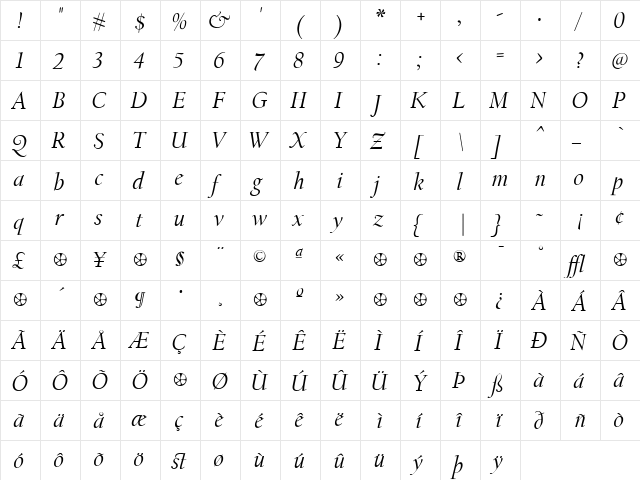
CalifornianMiddle Italic
| Foundry | Copr. The Font Bureau, Inc |
Design Context for CalifornianMiddle Typeface
CalifornianMiddle takes a measured approach to typography — its balanced proportions and neutral character make it a reliable workhorse for both digital and print work. Its italic angle brings a sense of urgency and motion to the letterforms.